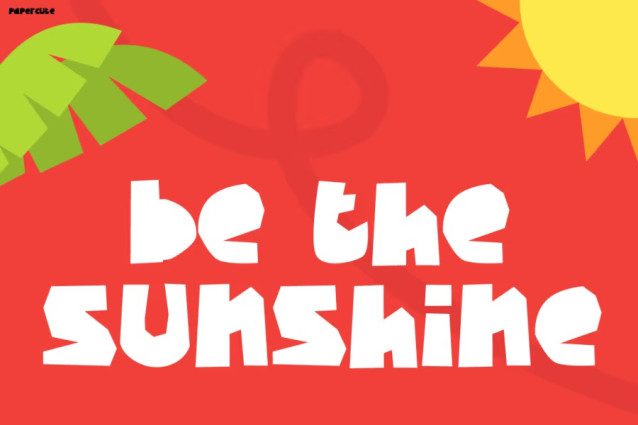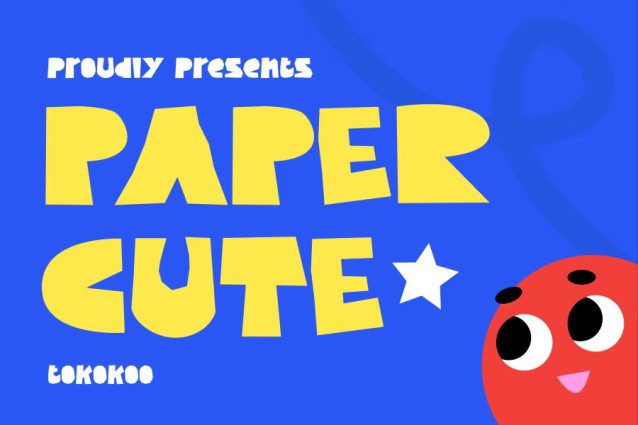
Papercute Font
Papercute Font captures the magic of childhood through bold shapes, lively curves, and cheerful handmade charm. Each letter feels as if it’s freshly cut from colorful paper, bringing a fun and creative energy to your design. Because of its bouncy rhythm and vibrant personality, this font instantly turns simple words into joyful expressions. It’s not just another typeface — it’s a celebration of imagination and happiness!
Moreover, Kids Font Papercute balances readability and style with perfect harmony. Its thick lines and smooth edges make every letter easy to recognize, while the playful details keep your design alive. You can use it for toy packaging, educational materials, children’s books, or cheerful branding. Wherever you apply it, the font adds warmth, excitement, and positivity.